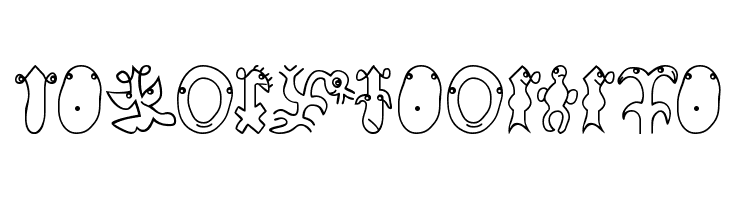
A dynamic, brush-style font with expressive, hand-drawn strokes.
A bold, textured font with a corroded, industrial look.
A bold, three-dimensional font with a skeletal, architectural design.
A bold, modern typeface with clean lines and strong presence.
A whimsical and decorative font with abstract, mythical shapes and intricate details.
A clean, modern sans-serif font with uniform stroke width and balanced spacing.
A bold, modern sans-serif font with a sleek and narrow design.
A bold, modern sans-serif font with clean lines and uniform strokes.
A modern, bold sans-serif font with a unique outlined style.
A modern, geometric font with a bold, double-line style for high legibility and impact.